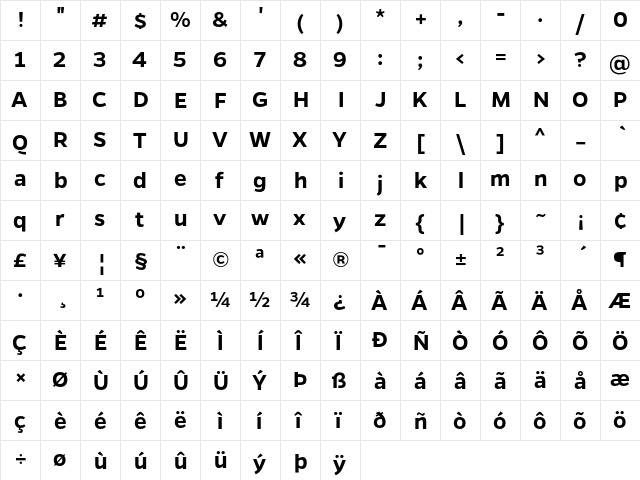
Gentona SemiBold Regular
| Foundry | Rene Bieder |
| Designer | Rene Bieder |
Design Context for Gentona SemiBold Typeface
Gentona SemiBold offers clean, dependable letterforms without strong stylistic allegiance, making it a practical choice for designers who need flexibility. The heavy weight commands attention and anchors typographic hierarchies.